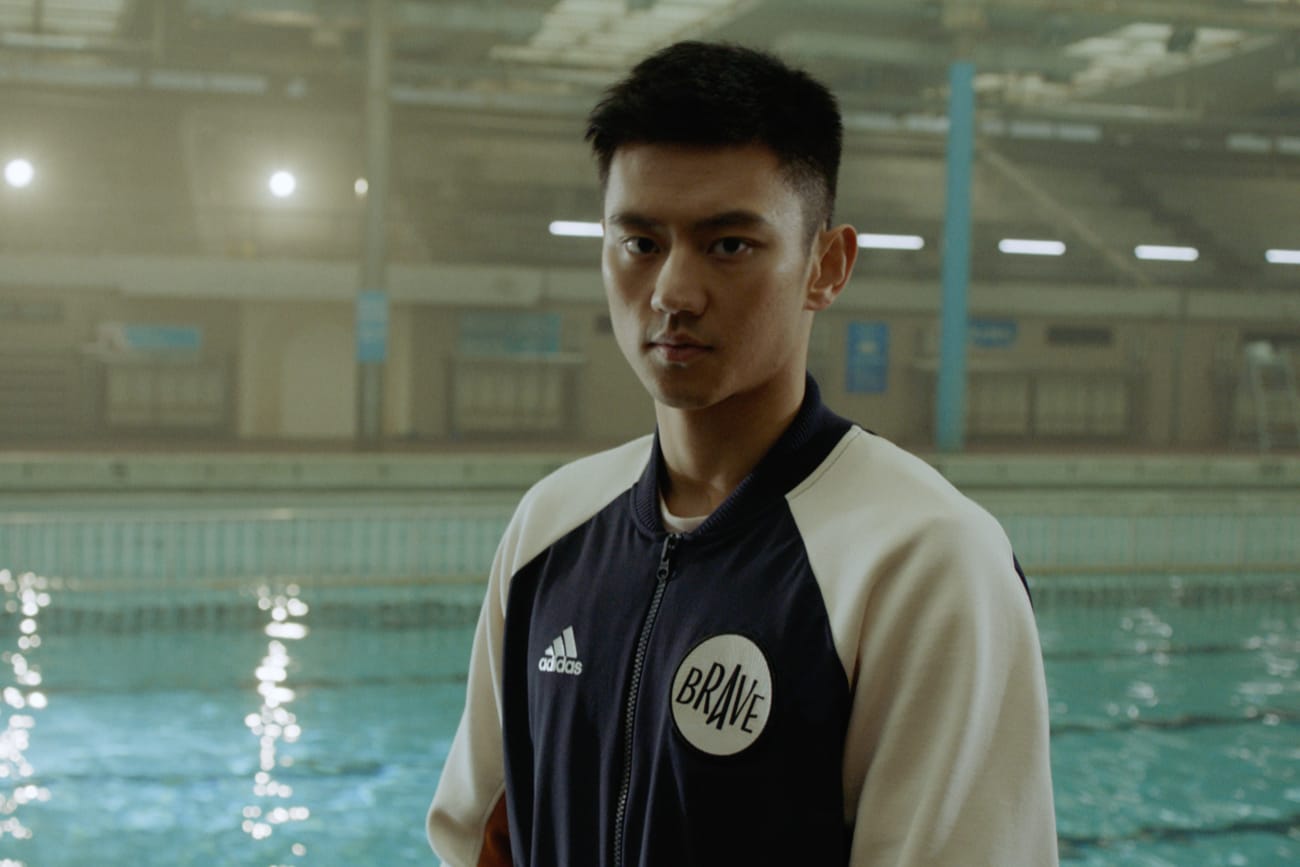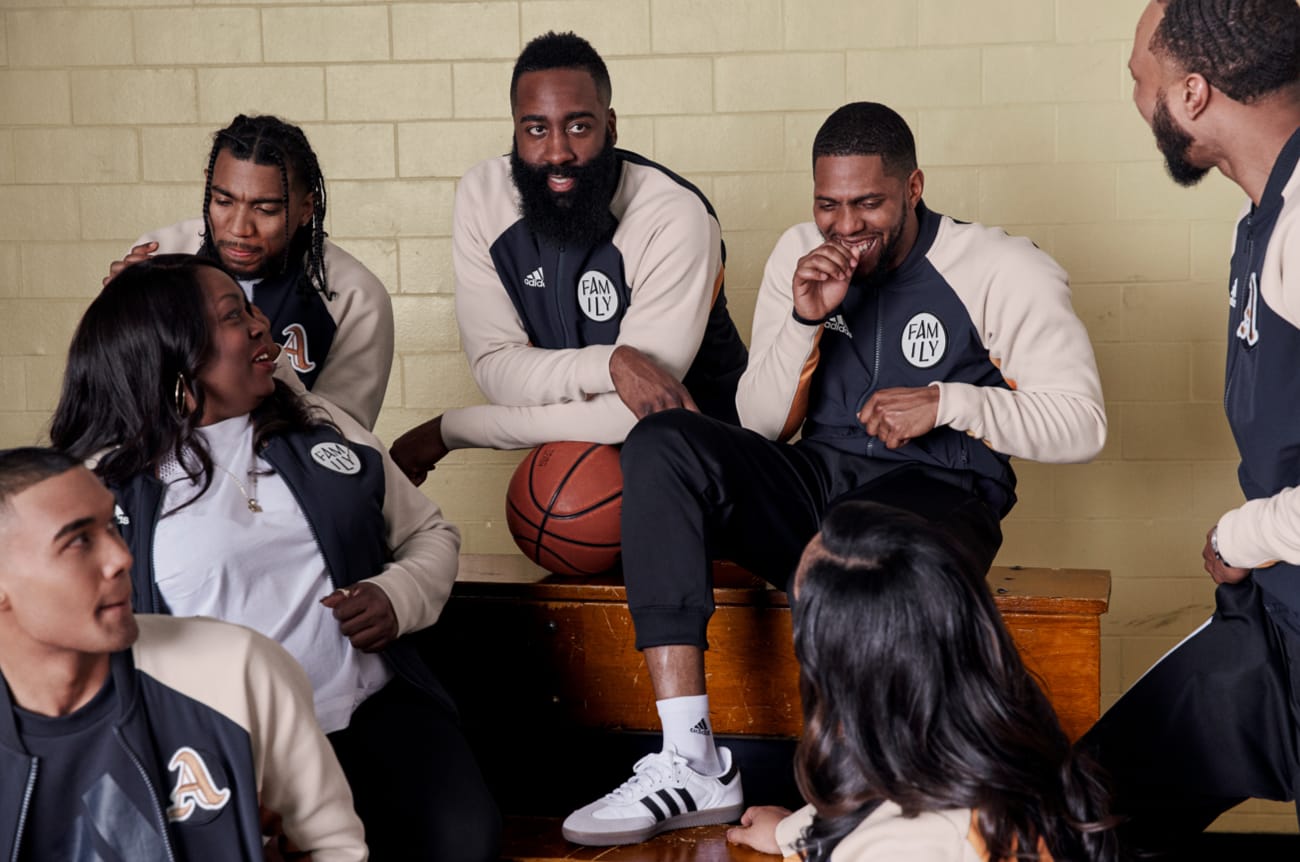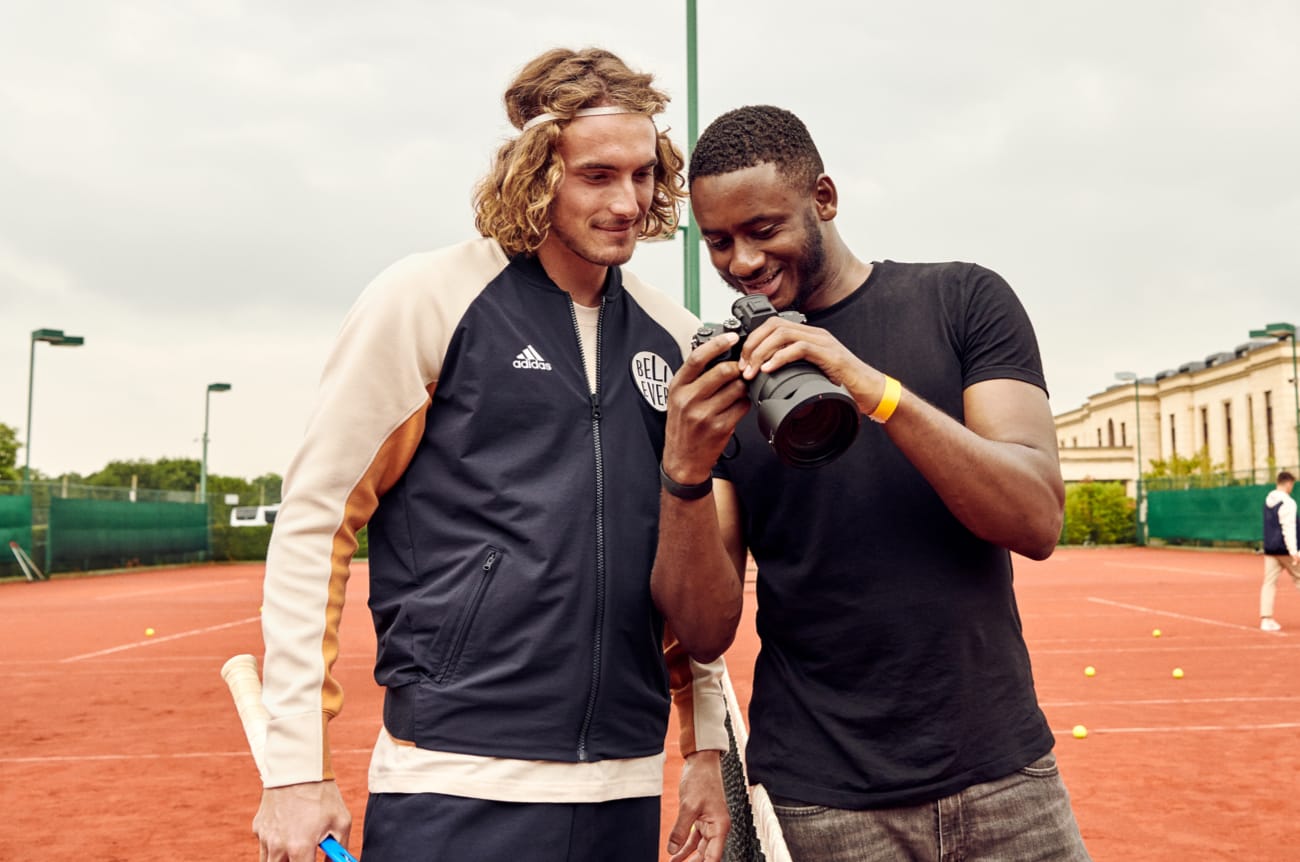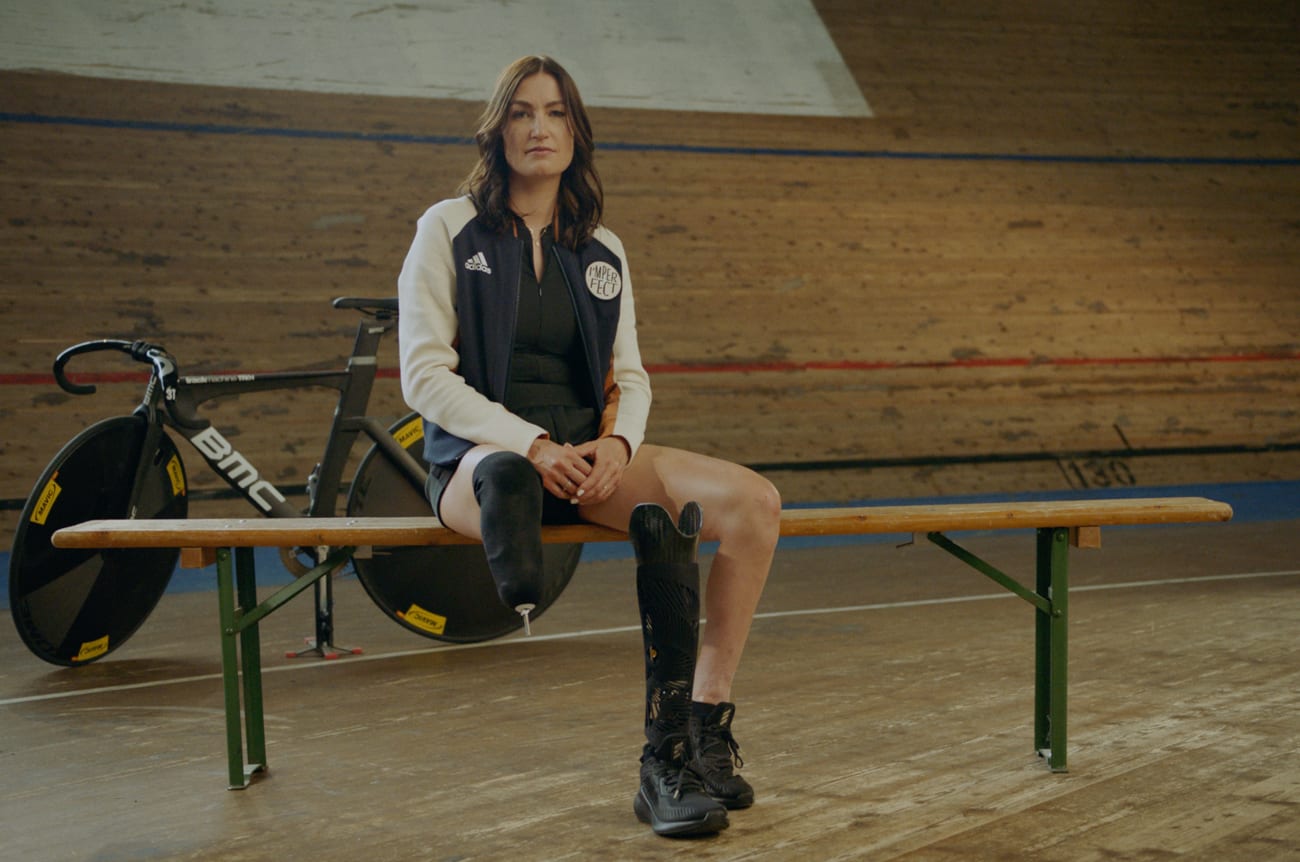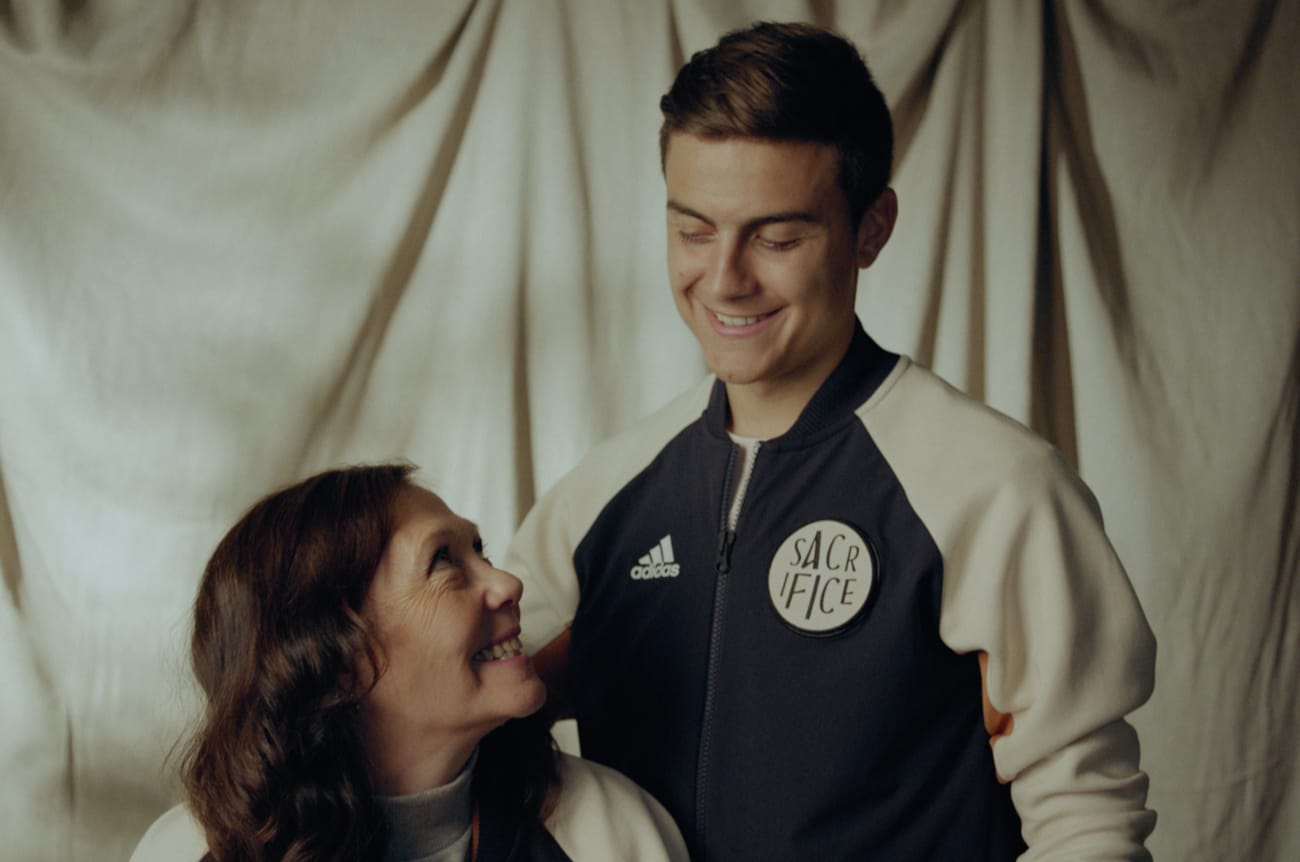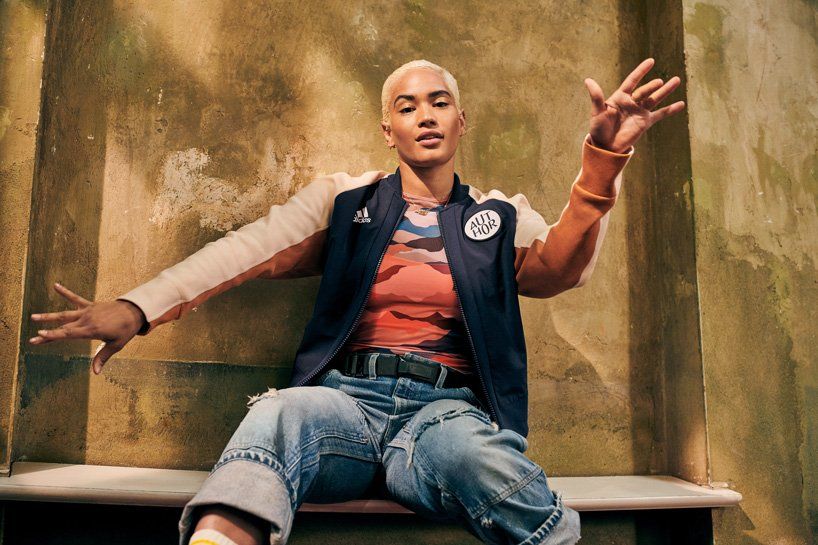
The new adidas VRCT jackets' font, by Fabio Novembre There's the Italian designer behind the idea of removable patches on the jackets inspired by American colleges
His name has been many times linked, in recent years, to the new image of AC Milan: Fabio Novembre, the Apulian designer who in 2014 worked on the project for the new Milan headquarters, Casa Milan, and which in 2016 collaborated on the realization of the adidas home shirt of the Rossoneri, is behind the adaptive font to be applied on the new VRCT jackets unveiled last September.
Novembre studied a graphic character able to adapt to the rounded shape of the patches. To be precise, these are twelve different widths that correspond to different weights: bigger is the letter, bigger is its weight, a system that gives consistency and balance to the letters. As explained by the same designer:
"The character is inspired by the style of the classic letters of the 1950s not only linked to the world of sport, but also to the culture of that time and, above all, to aviation".
The varsity jackets made by adidas are openly inspired by the jackets used in American colleges, first introduced by the Harvard baseball team back in 1865 and soon became one of the most significant items of US sports culture. adidas has decided to draw inspiration from the sporting tradition of the schools, reinventing a completely new garment with contemporary style, and choosing six illustrious testimonials from different sports: the Houston Rockets basketball player James Harden, the para-cyclist Denise Schindler, the American dancer Mette Towley, Juventus football player Paulo Dybala, Chinese swimmer Ning Zetao and Greek tennis player Stefanos Tsitsipas. Everyone with a different story behind them.
And thanks to the personalized patches each champion has chosen a representative word to show himself, a way to tell their own growth, a fundamental quality in their personal success or that summarizes their individuality in the best possible way. As stated since Novembre, in fact:
'Every man, every athlete is a carrier and acts as a force, carrying a message with a wide audience. The idea was to recreate in the patch a sort of storytelling looking back at the victories in university traditions in the battles that take place in the present. Everyone must be able to choose their message to pin on their chest and wear it with pride, showing off a story.'